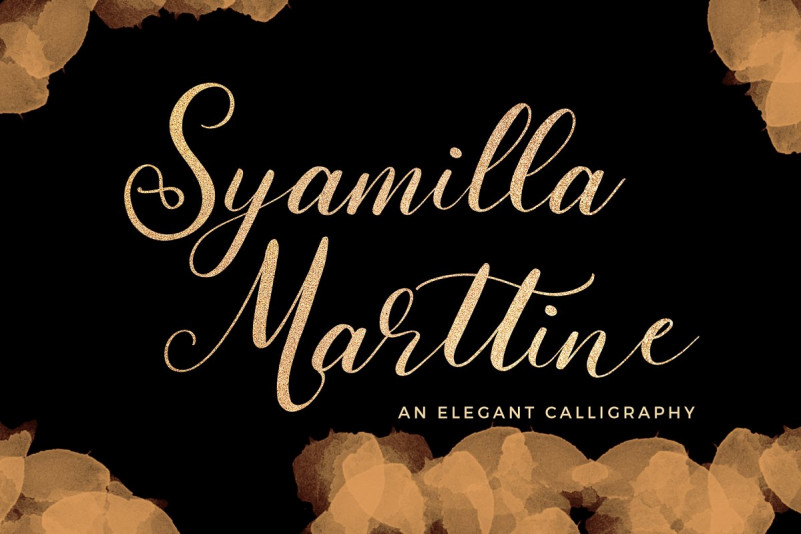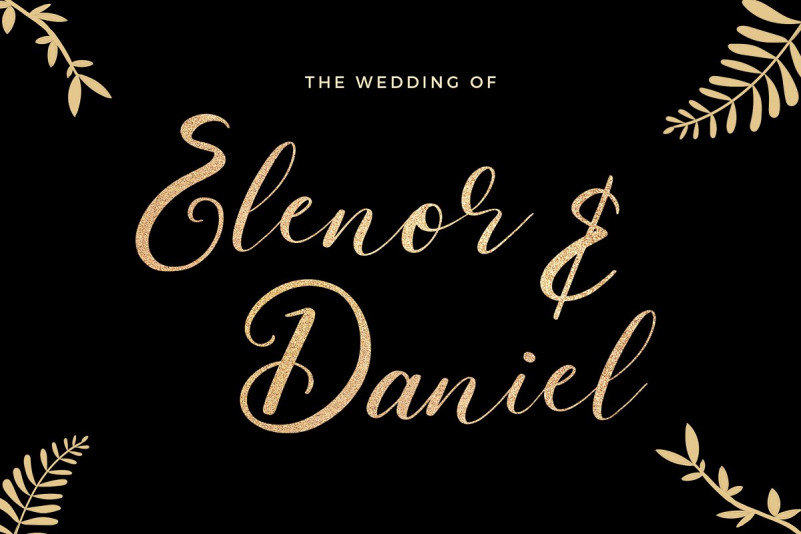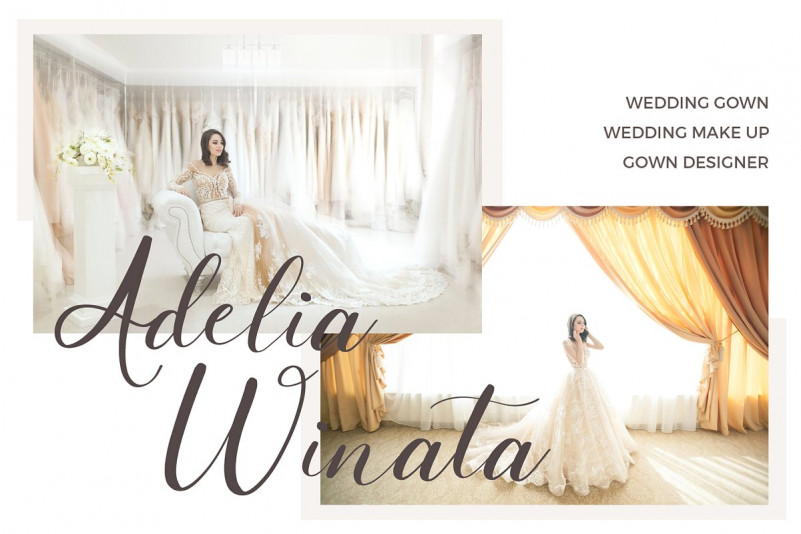
Syamilla Marttine Font
Syamilla Marttine An Elegant Calligraphy Font is a lovely modern calligraphy font. It’s combining the classic style of calligraphy with a more modern style.
Syamilla Marttine can be used for various purposes such as logos, wedding invitations, t-shirts, letterheads, signage’s, labels, and much more!